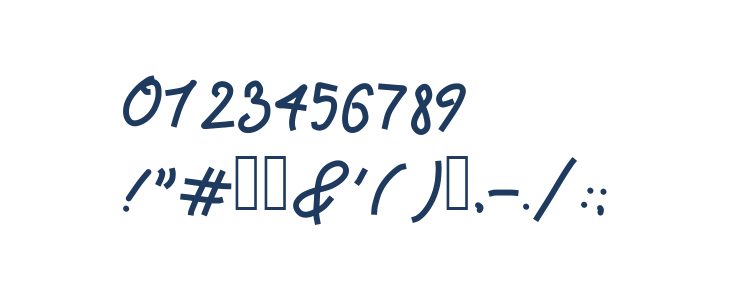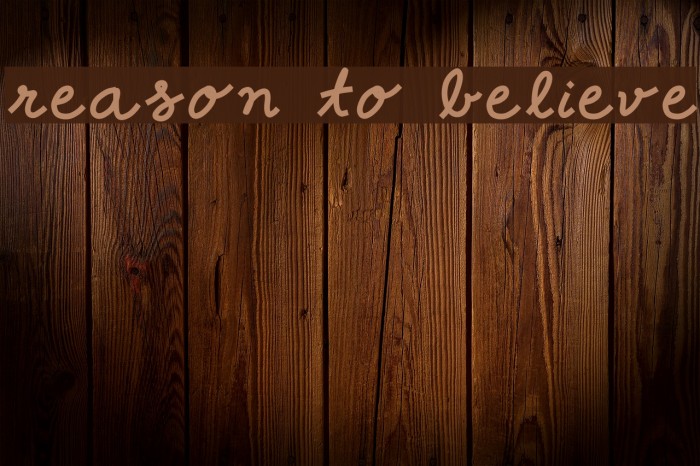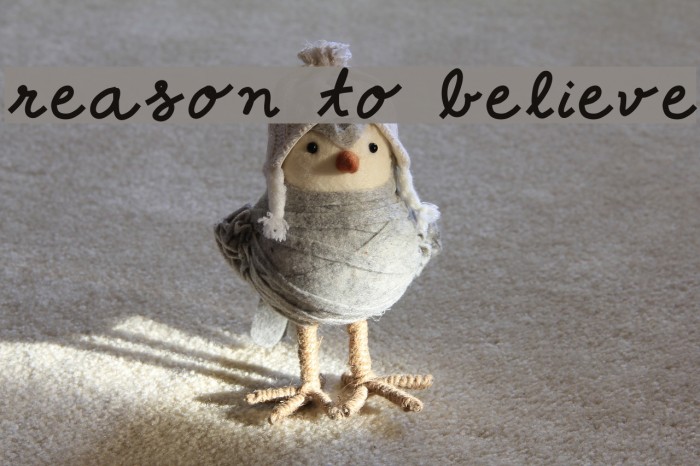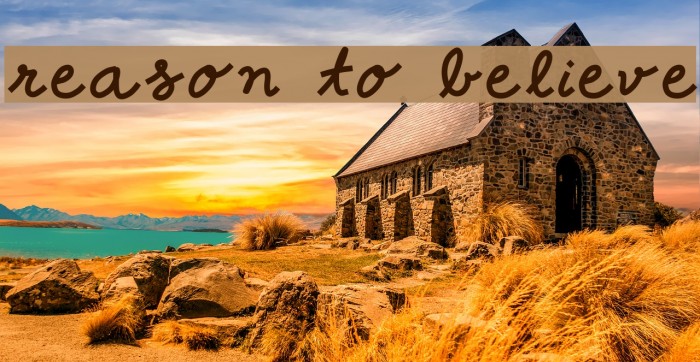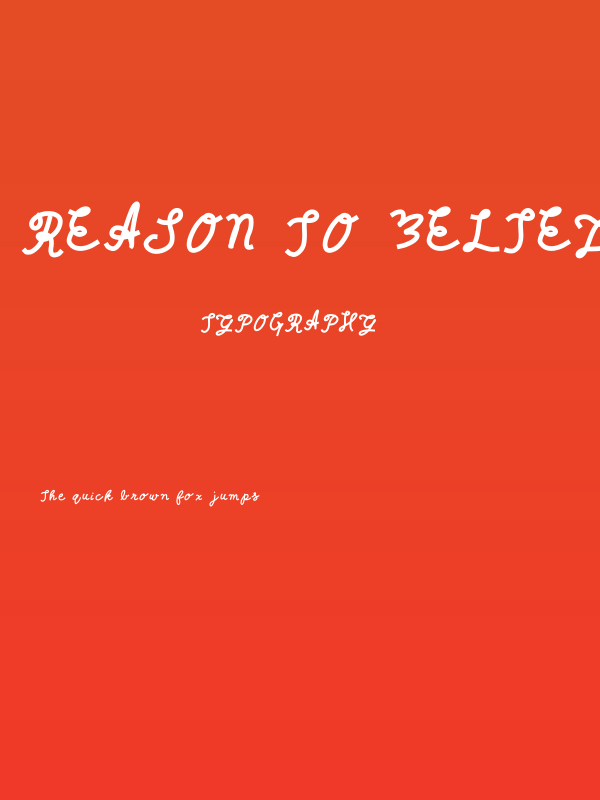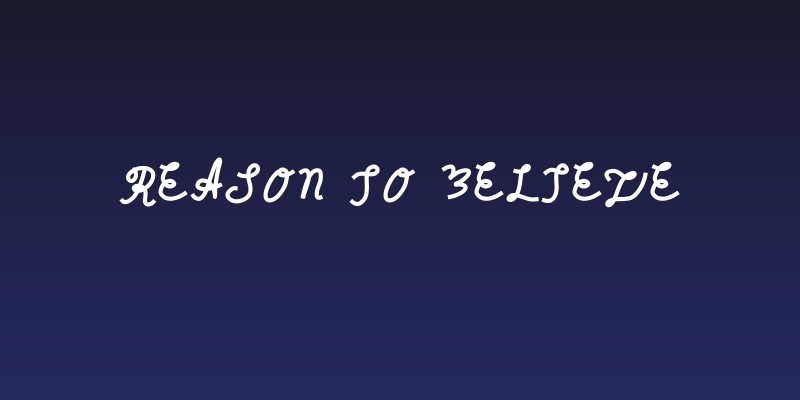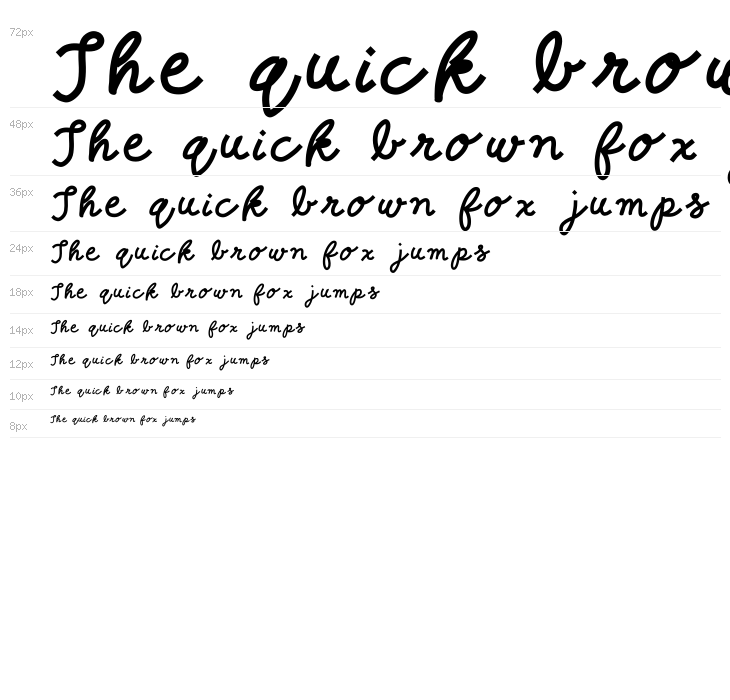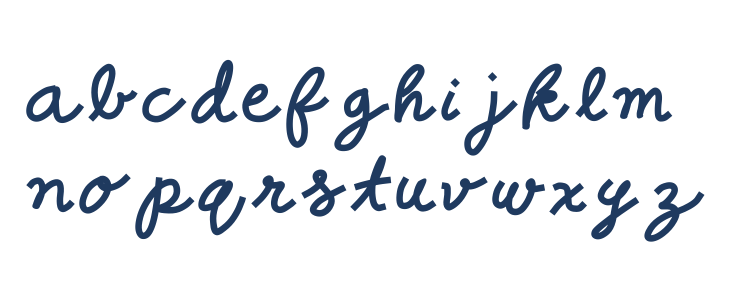
reason to believe Font
reason to believe Description
This font features a playful and dynamic script style with a handwritten appearance. The letters are connected, giving it a fluid and continuous look, reminiscent of casual handwriting. The strokes are moderately thick, providing a bold presence while maintaining elegance. The uppercase letters are slightly larger and more pronounced, while the lowercase letters maintain a consistent flow. Numbers and special characters are designed to match the overall style, ensuring a cohesive appearance across all elements. This font is ideal for projects that require a personal touch or a sense of informality.
| Proposed Projects | Greeting cards, invitations, personal branding, social media graphics, and informal event posters. |